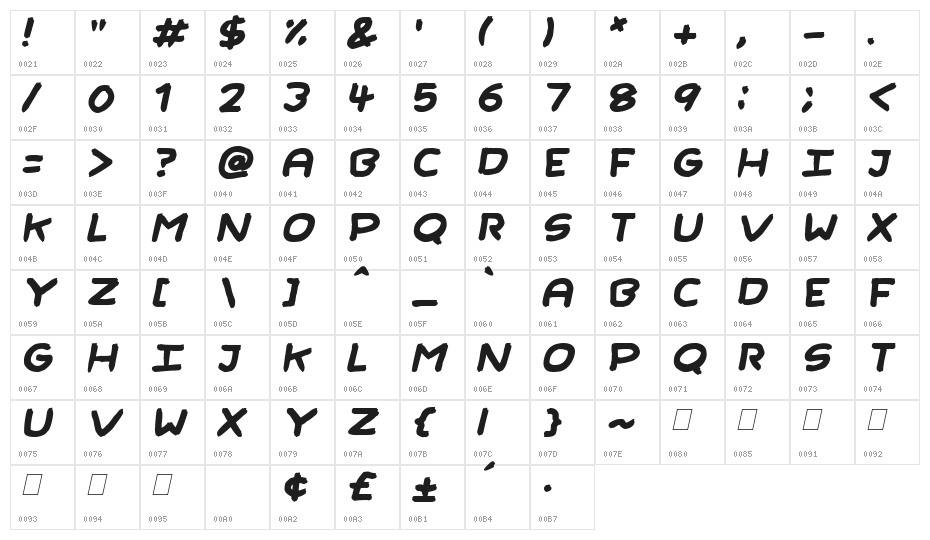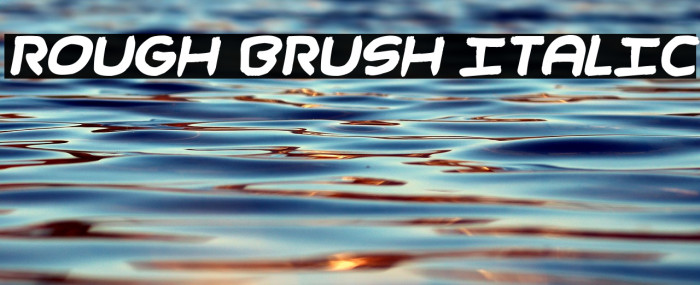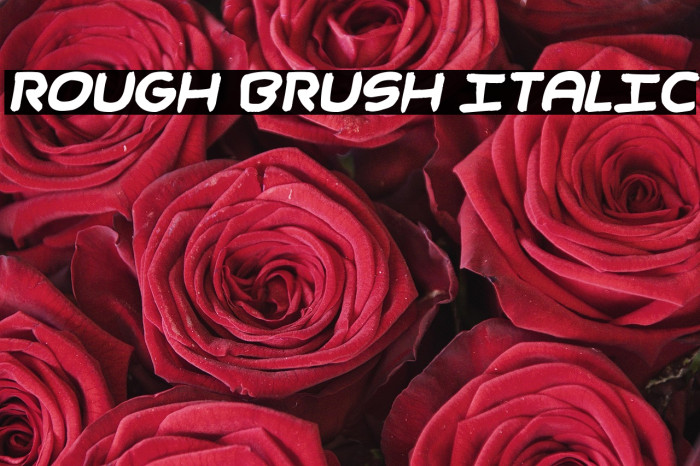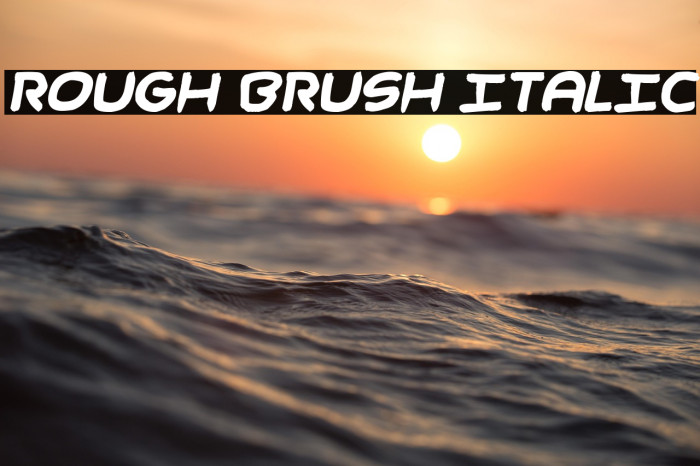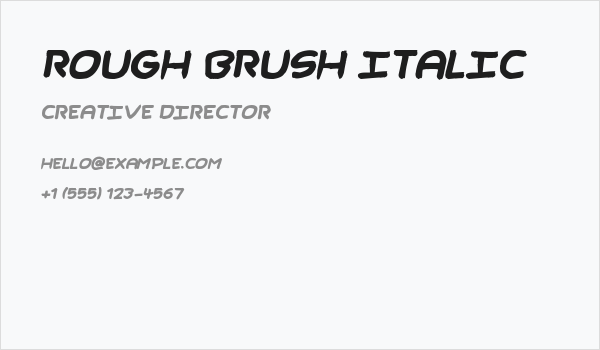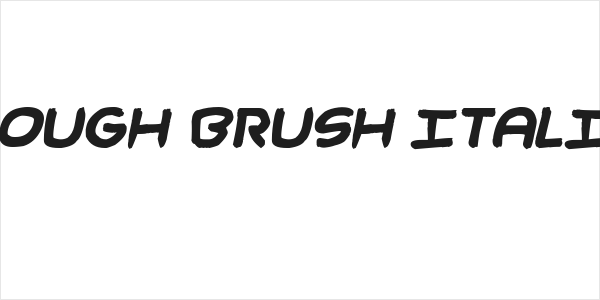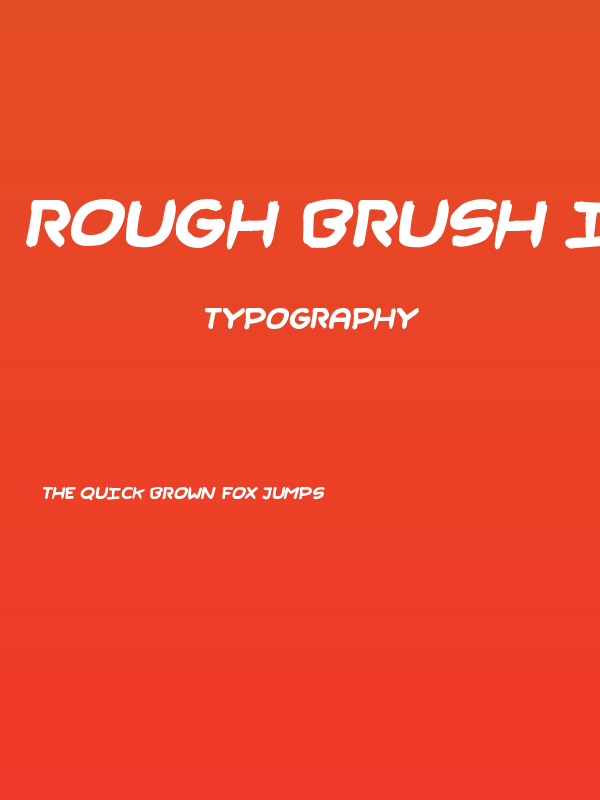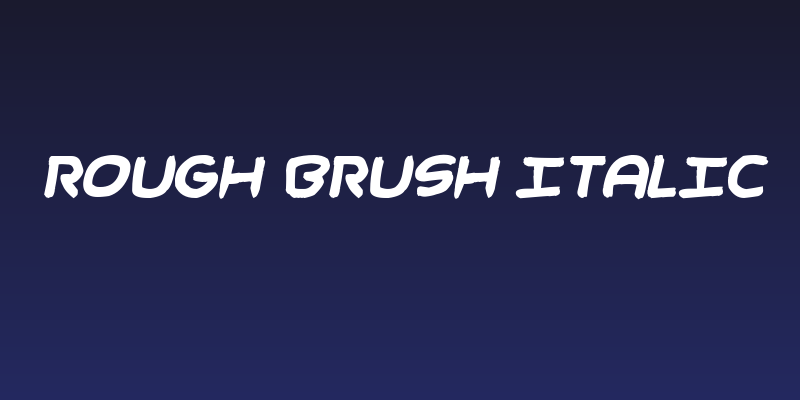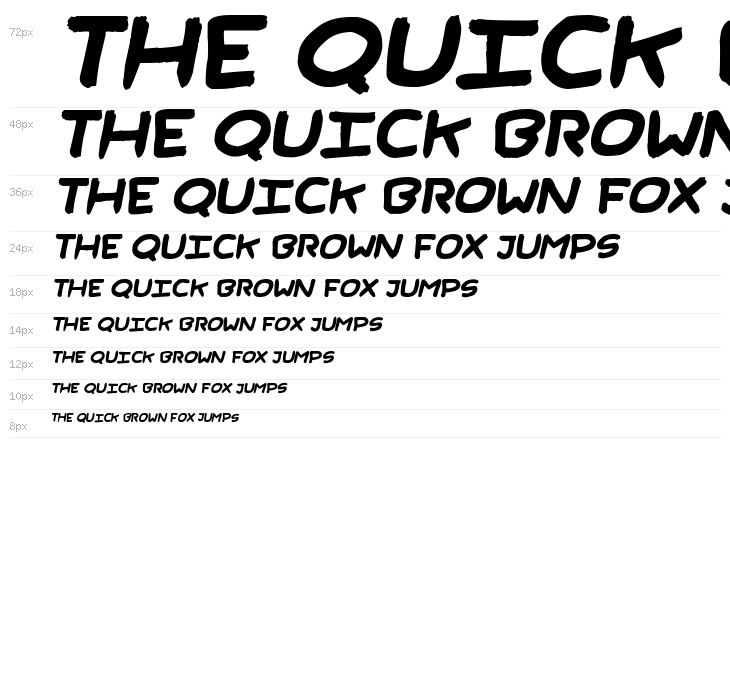
Rough Brush Italic Font
Rough Brush Italic Description
This font features a dynamic and energetic brush style, characterized by its bold and italicized strokes. The letters are crafted with a rough, hand-drawn appearance, giving it a casual and artistic vibe. The uppercase and lowercase letters maintain a consistent flow, while the numbers and special characters complement the overall aesthetic. The font's design is reminiscent of graffiti or street art, with a playful yet assertive presence. Its unique style makes it stand out, ideal for projects that require a personal touch or a creative edge.